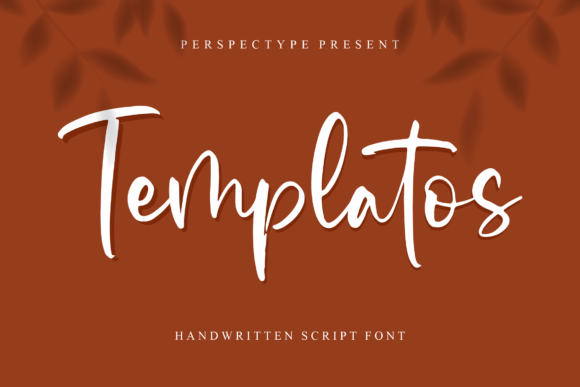
In the realm of digital artistry, where words take shape and stories unfold, Templatos Font emerges as a breathtaking script, a masterpiece carefully crafted by the visionary minds at Perspectype. This exquisite font family is an invitation to embark on a journey of creativity, a voyage where your imagination sets sail and your designs flourish like never before.
Templatos, a symphony of curves and flourishes, is the ultimate companion for crafting captivating website menu bars. Its enchanting characters dance across the screen, luring visitors with their elegance and charm. Each letter, meticulously designed, carries a touch of individuality, a whisper of personality that entices users to explore further, to delve deeper into the world you have created.
With Templatos, your website menu bar transforms into an artistic haven, a gateway to a universe of sophistication and style. The delicate strokes and graceful swashes evoke a sense of artistry, elevating the user experience to new heights. Whether you're designing a personal blog, an online portfolio, or a sophisticated corporate website, Templatos adds a touch of magic that leaves a lasting impression.
But Templatos is not confined to the realm of website design. Its versatility extends far beyond, like a river that meanders through diverse landscapes. Unleash your creativity and let Templatos guide you through a myriad of projects, from enchanting logos that capture the essence of your brand to stunning homeware designs that exude warmth and elegance.
Imagine the charm of Templatos adorning your product packaging, transforming mundane items into objects of desire. Envision your quotes and posters infused with a touch of whimsy, their messages rendered in a script that captivates and inspires. Let Templatos dance across shopping bags and t-shirts, adding a touch of artistry to everyday objects.
The possibilities with Templatos are boundless, a testament to its versatility and timeless appeal. Whether you're designing book covers that intrigue and captivate or creating invitation and greeting cards that spread joy and cheer, Templatos is your trusted companion, transforming your creations into works of art.
With Templatos, you embark on a journey of self-expression, a voyage where your creativity knows no limits. Its meticulously crafted characters, imbued with charm and sophistication, elevate your designs, leaving an indelible mark on the hearts of those who encounter them.
So, immerse yourself in the world of Templatos, a font that ignites your imagination and sets your creativity ablaze. Let your designs flourish, your words dance, and your stories captivate, all with the stroke of a single brush, the elegance of a single letter.